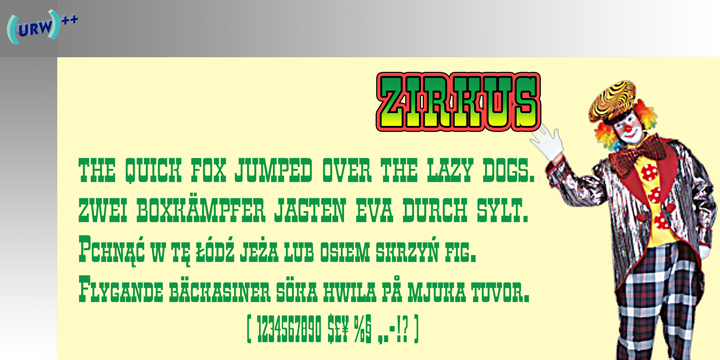
Zirkus Font Free Download is a lively and vintage-inspired typeface that perfectly captures the playful spirit of classic circus posters. With its bold, decorative letterforms and whimsical style, this font is ideal for branding, event posters, invitations, and any design needing a touch of nostalgia and fun.
Whether you're creating eye-catching headlines or festive logos, Zirkus Font Free Download delivers excellent readability combined with a unique character that grabs attention. Its vintage charm makes your typography stand out with a joyful, energetic vibe.